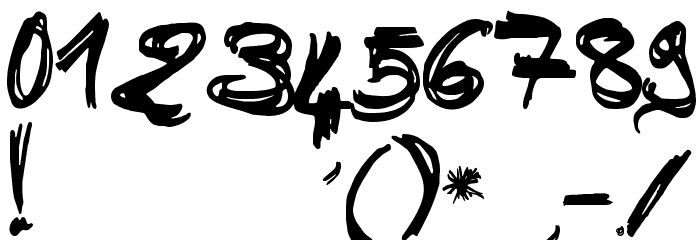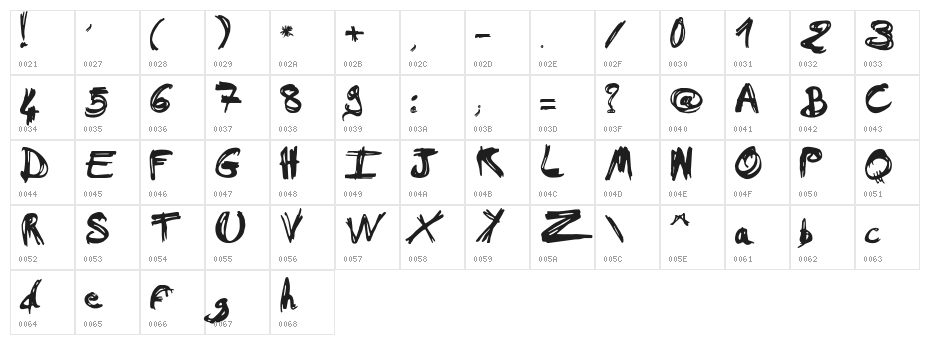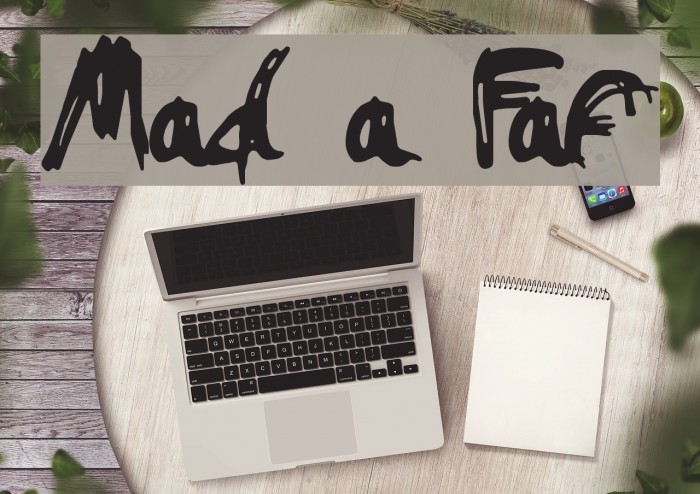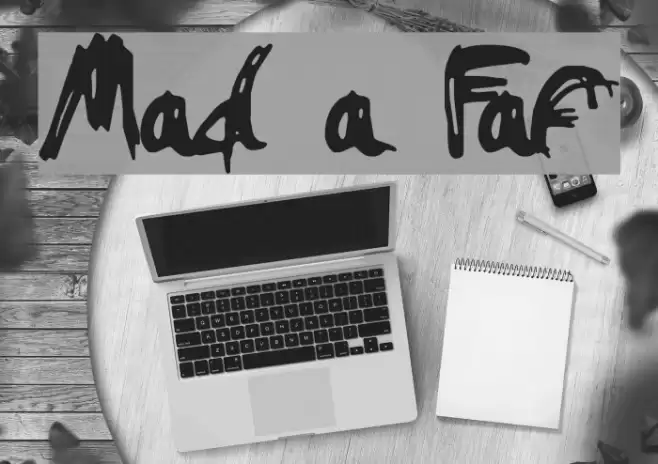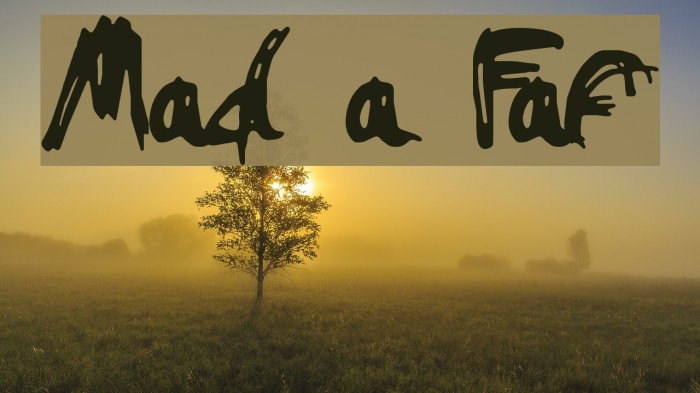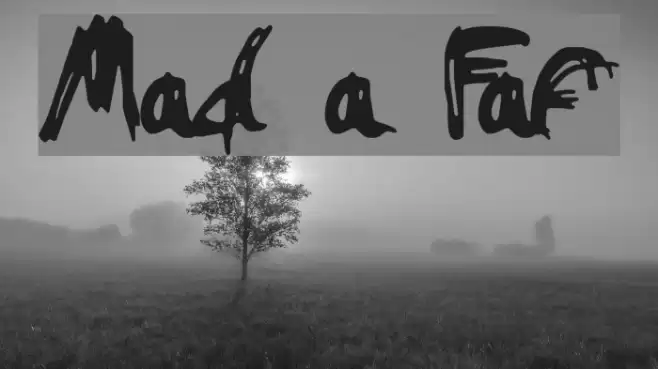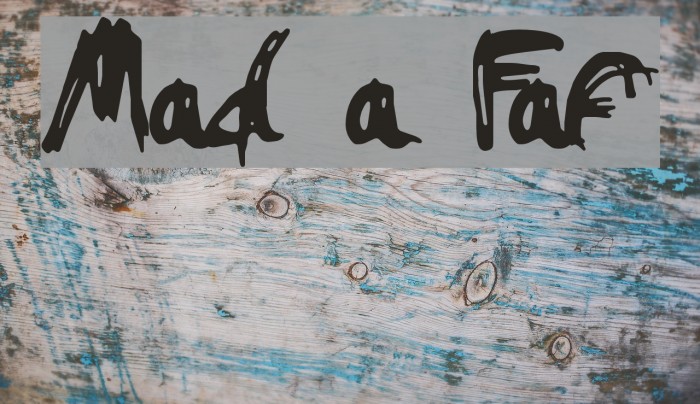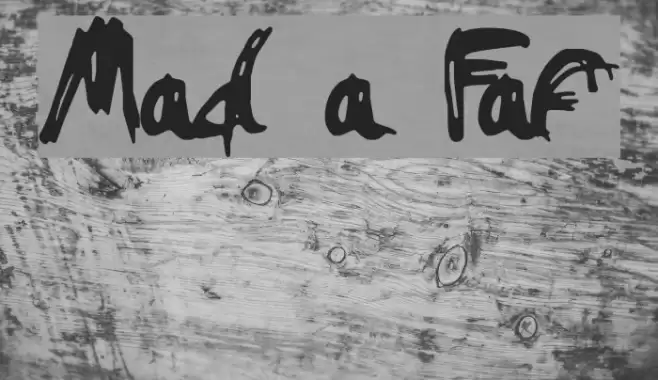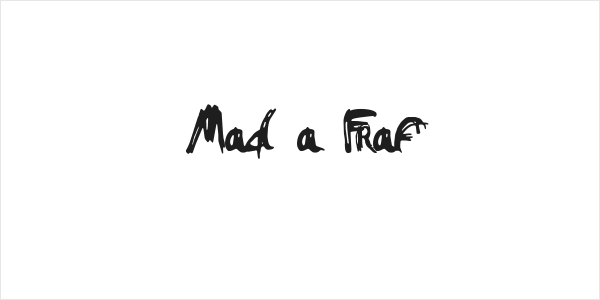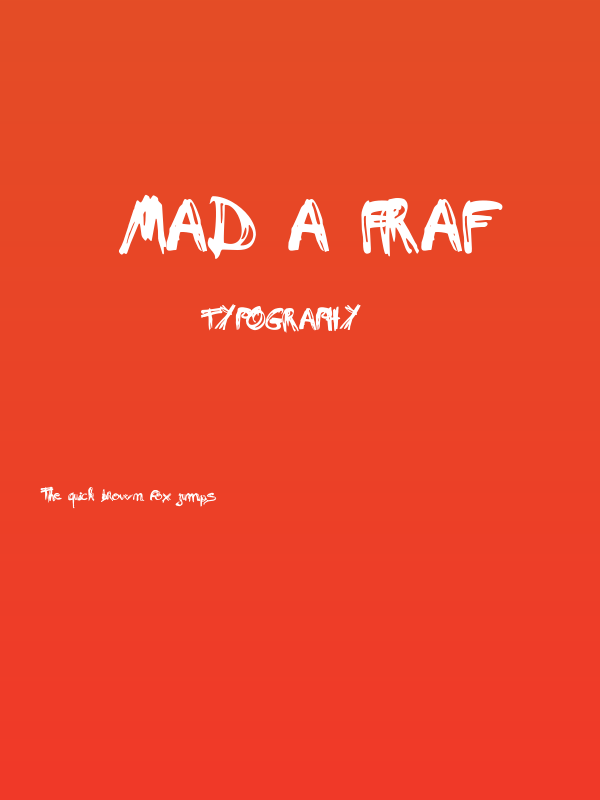
Mad a Fraf Font
Mad a Fraf Description
This font features a bold, graffiti-inspired style with a highly expressive and dynamic appearance. The characters are irregular and have a hand-drawn quality, with strokes that vary in thickness, creating a sense of movement and energy. The uppercase and lowercase letters maintain a consistent style, with exaggerated curves and sharp angles. Numbers and special characters are equally bold and maintain the same energetic style, making them stand out. This font is ideal for projects that require a strong, artistic statement.
| Overall Style | Modern, Urban |
| Proposed Projects | Perfect for street art designs, urban-themed posters, music album covers, and edgy branding projects. |